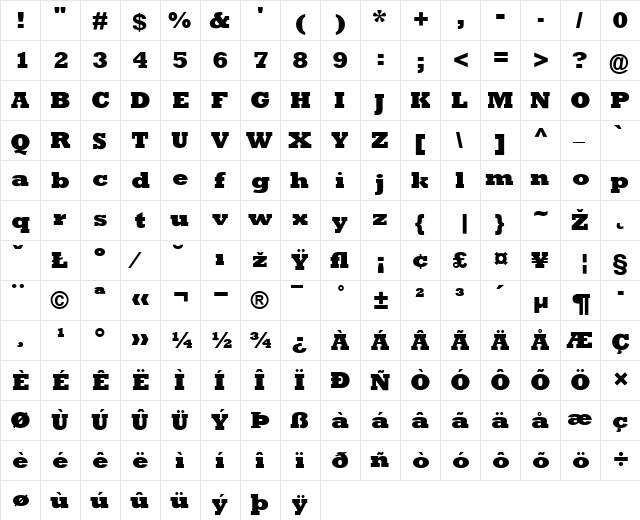
Rockwell-ExtraBold Bold
Design Context for Rockwell-ExtraBold Typeface
Rockwell-ExtraBold offers clean, dependable letterforms without strong stylistic allegiance, making it a practical choice for designers who need flexibility. Its bold stroke weight gives it real presence on the page.
Pro Tip: Use Rockwell-ExtraBold in both headline and body roles to test its range before committing to a single application.